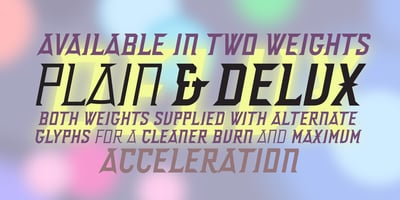
Delux Font Family was designed by Jonathan Barnbrook and published by Barnbrook Fonts. Delux contains 2 styles and family package options. Dynamic and urgent in style, Delux draws influence from ’50s science fiction pulp magazines and hand-painted military letterforms. Delux evokes an era when the future was neo-plastic, solid-state, isotopic bright (and everything was better with fins and chromium plating). Both retro-futuristic and nostalgic, Delux embodies a time when there was no melancholic longing for the past, just a naive burning optimism that ‘things to come’ would be better.